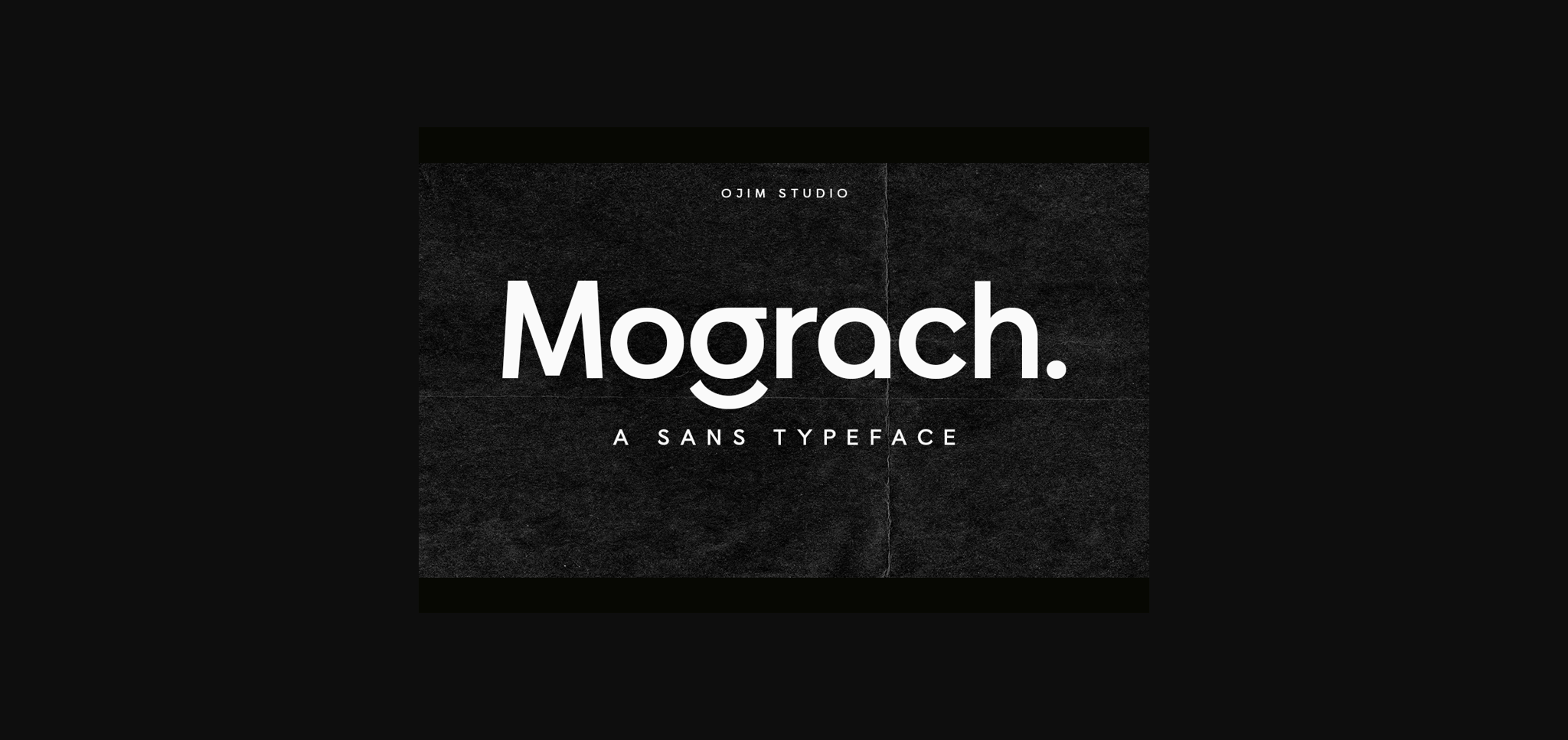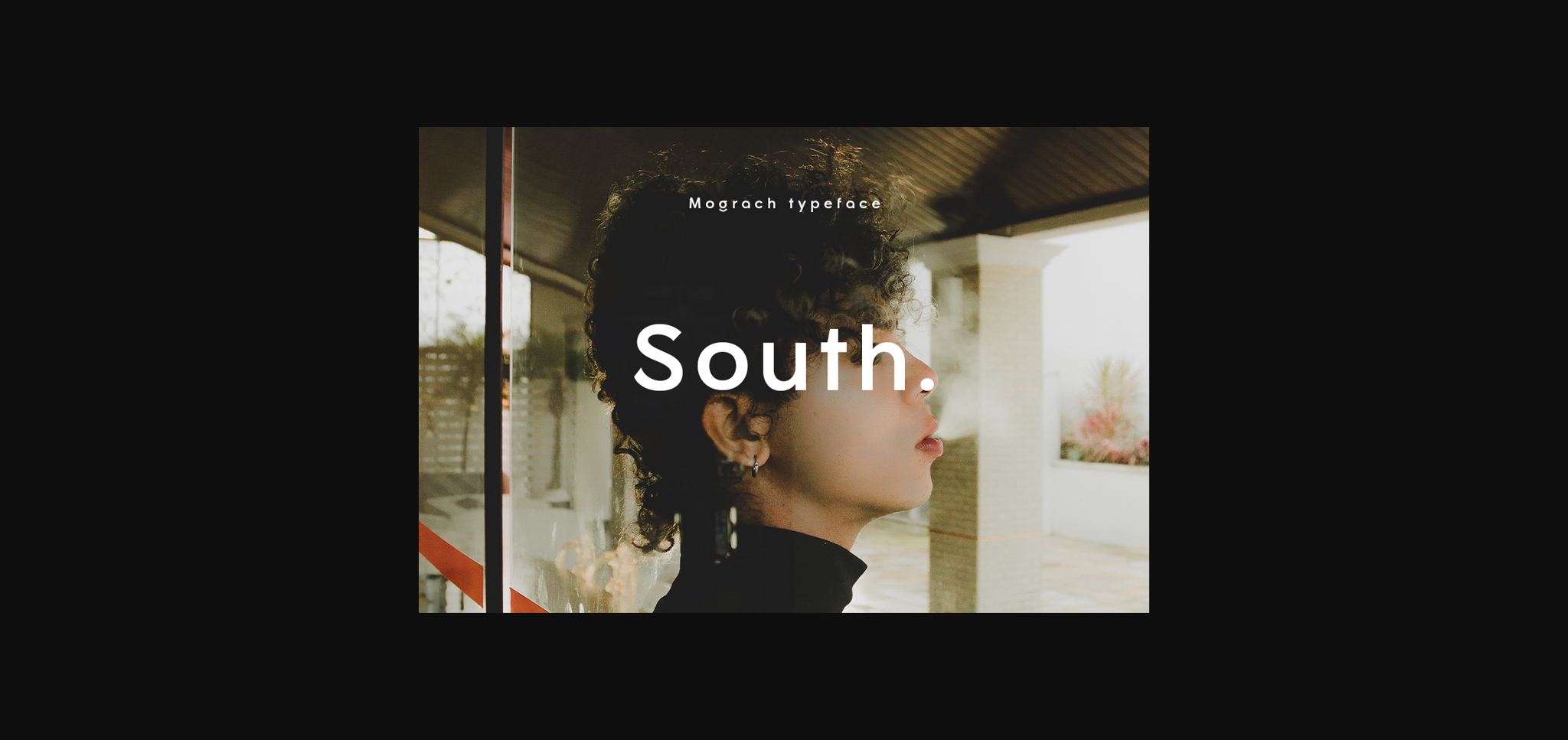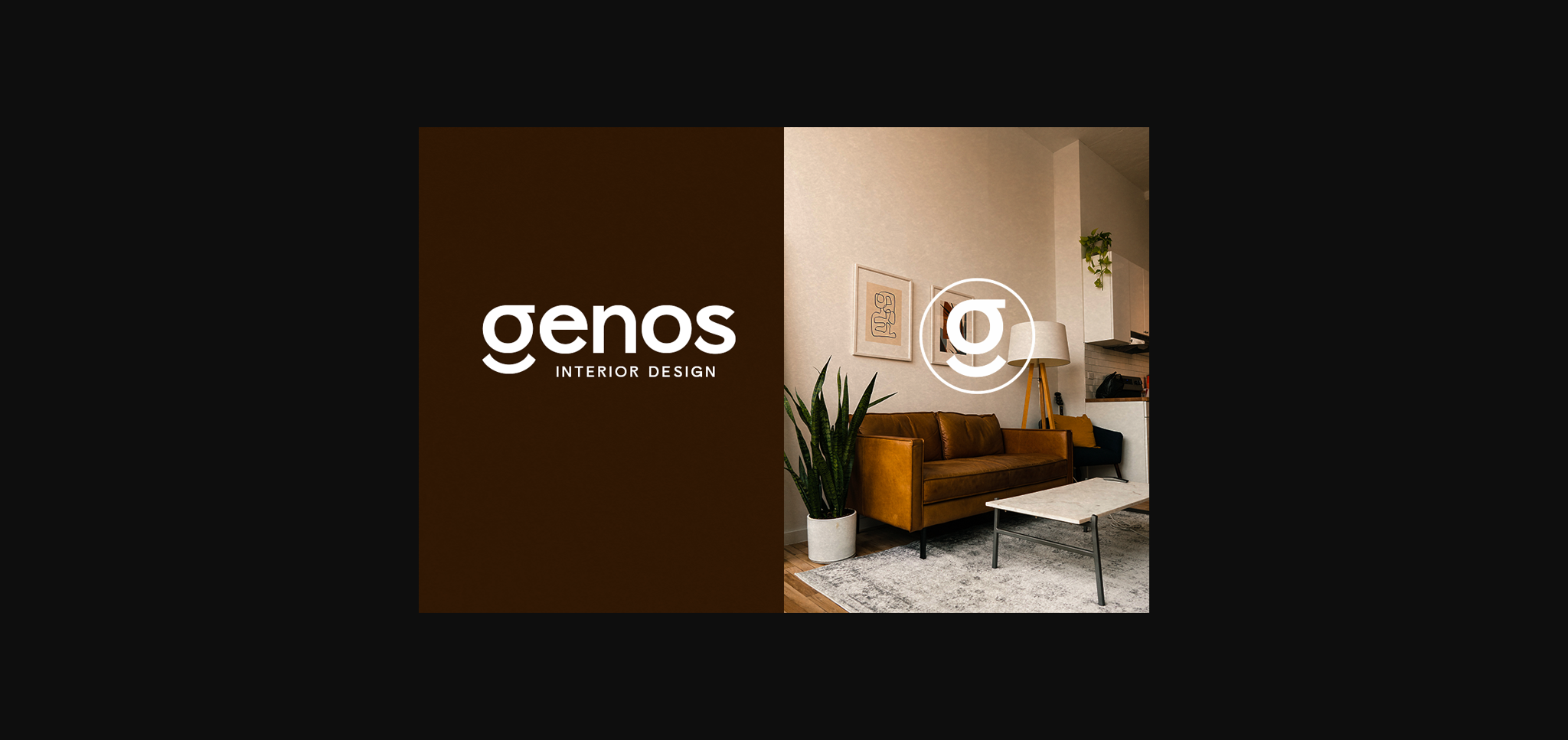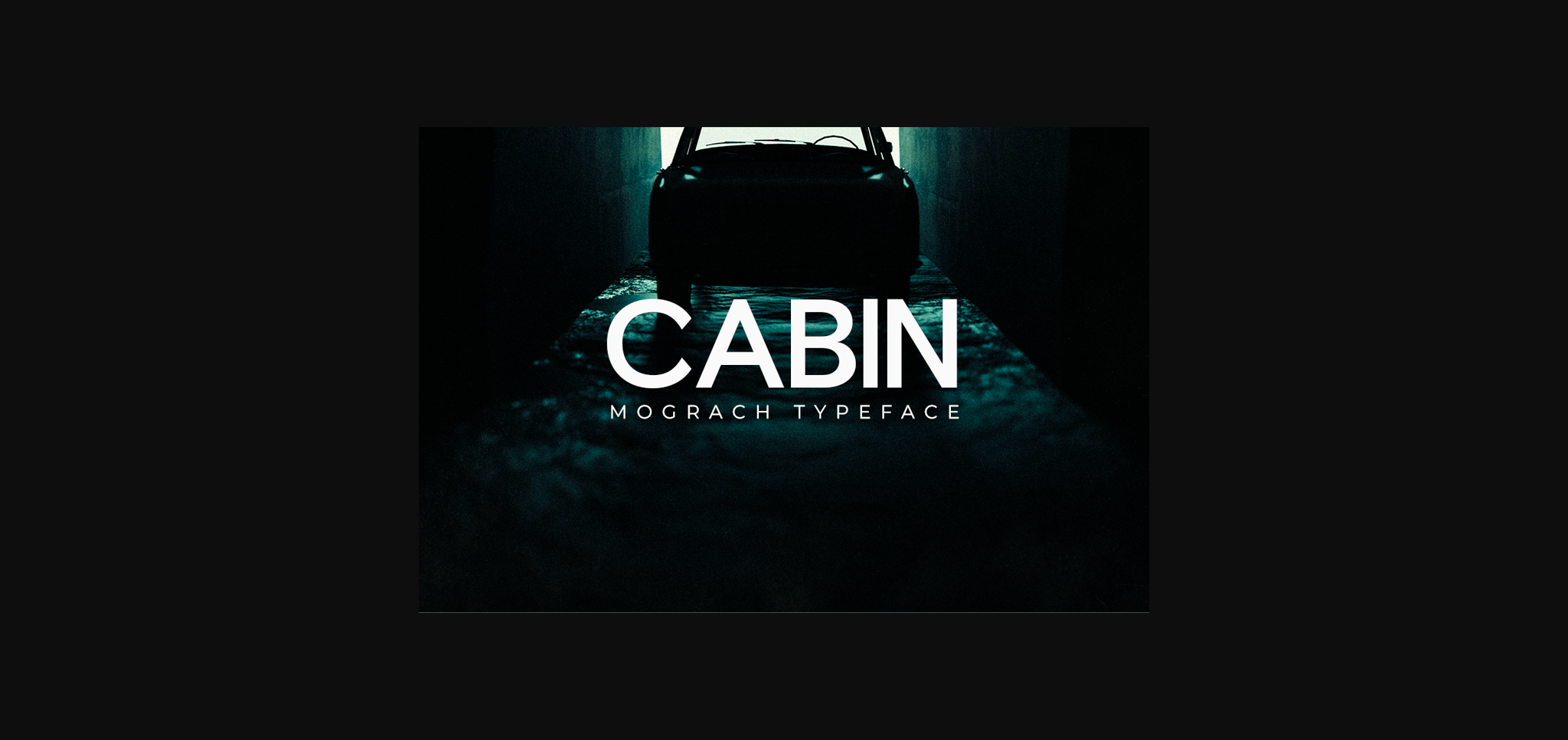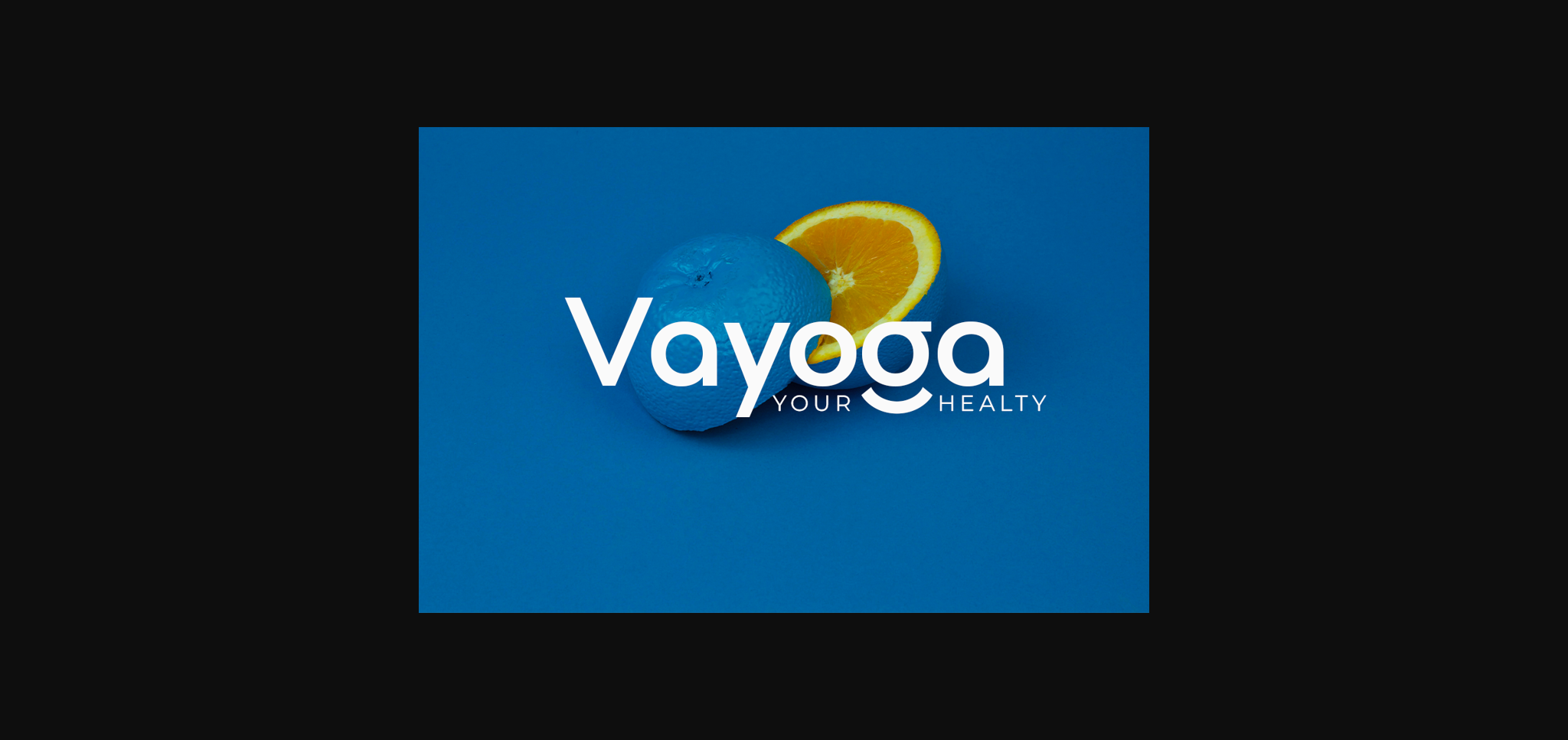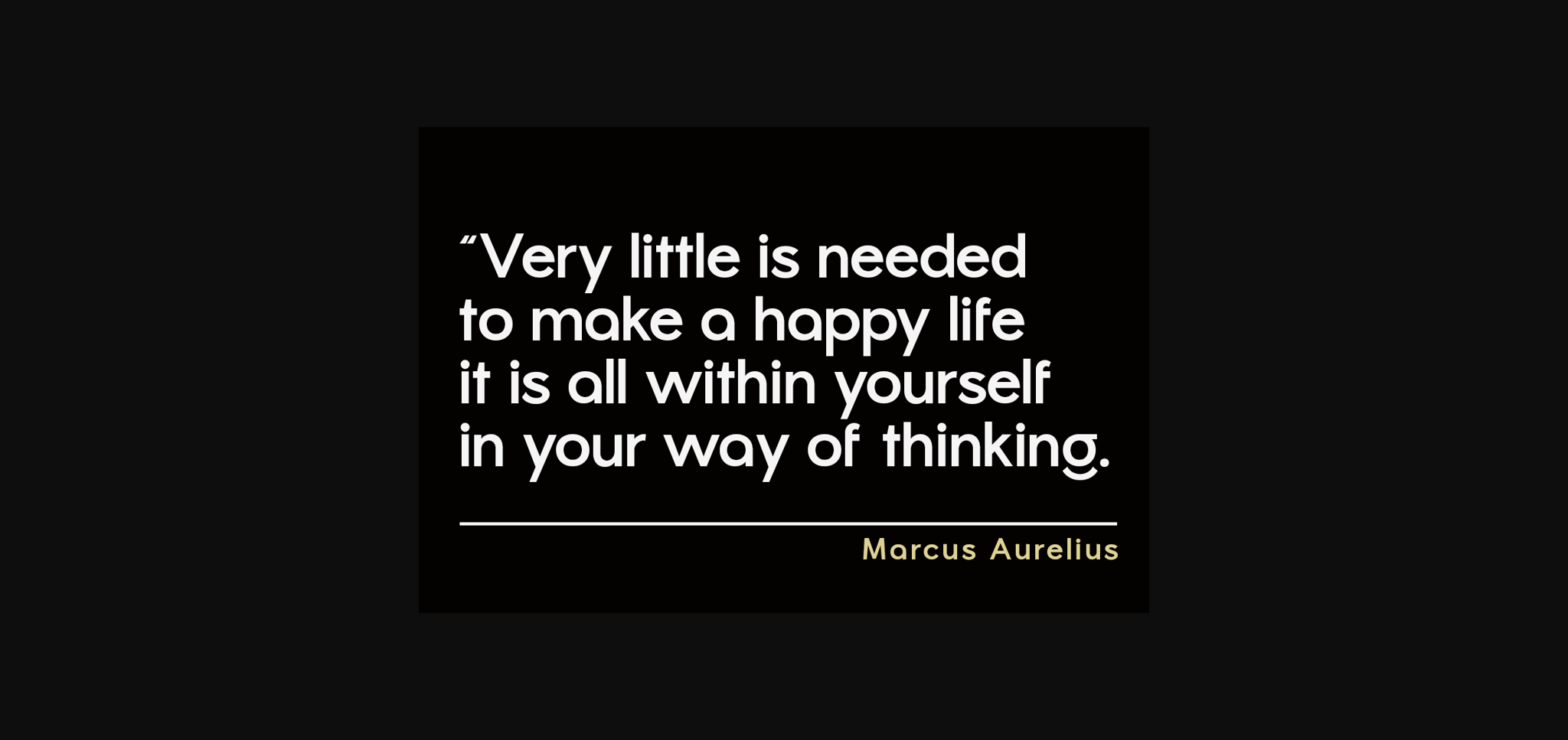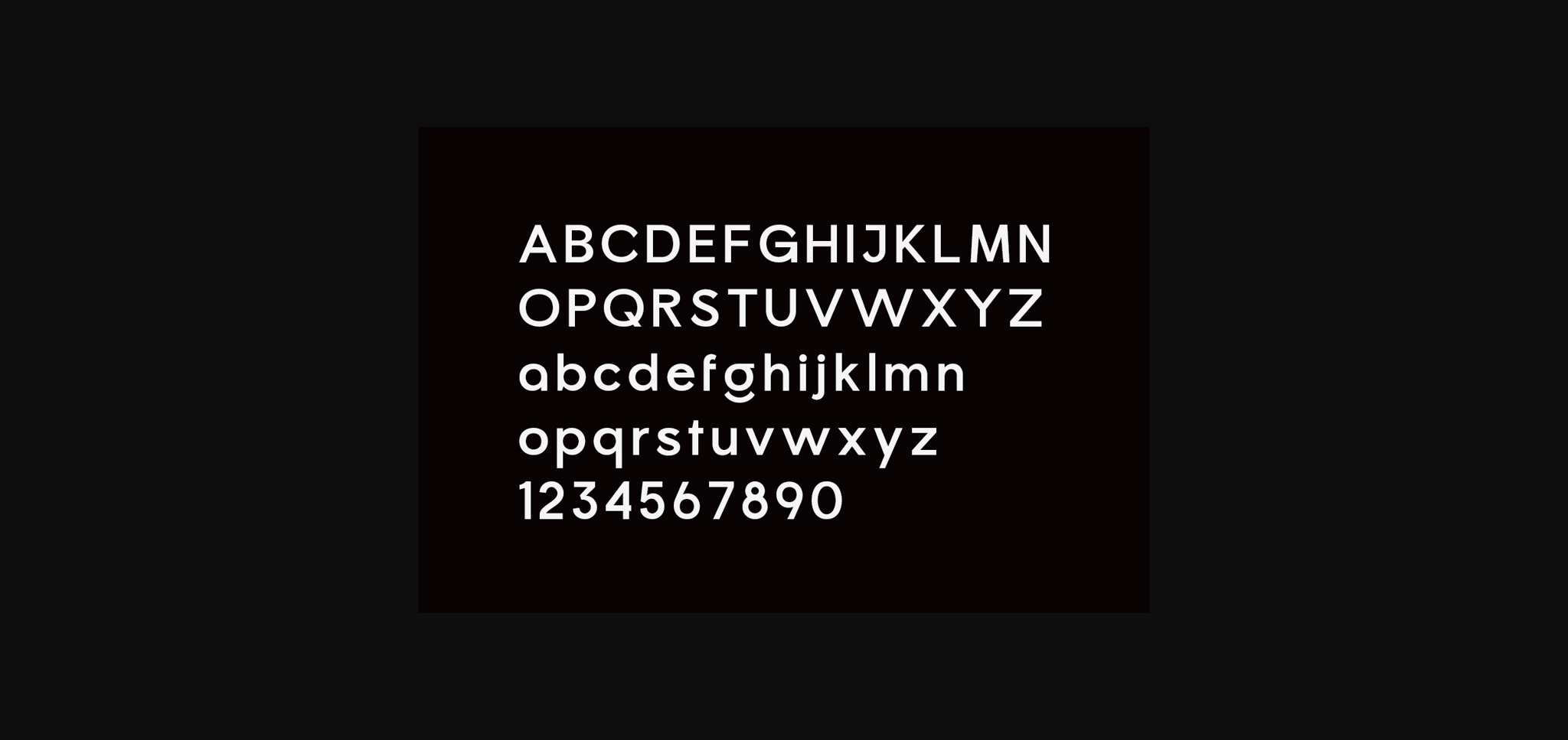
About Mograch Font
Mograch was designed to be a typeface that is pleasant to read on screens. The typeface has a refined touch that gives any headline an elegant appearance Mograch is designed with both modern and vintage curves.